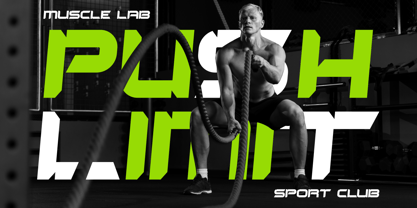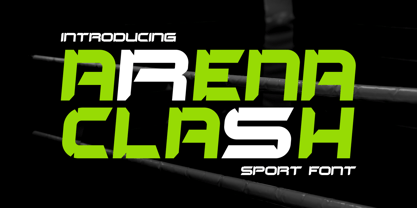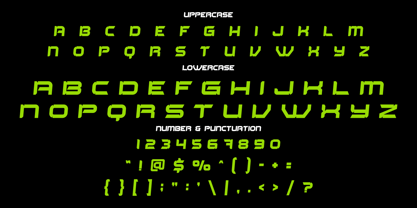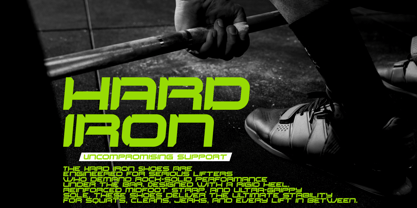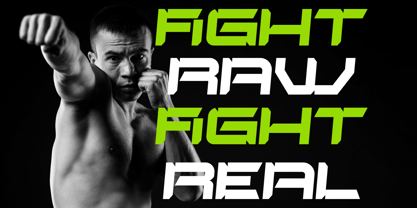
Arena Clash
by Shanaf
The Arena Clash Font Family was designed by Yesie Erma Yunita and published by Shanaf. Arena Clash contains 1 styles. More about this family
Arena Clash is a hyper-modern, masculine sport font that fuses angular force with aerodynamic flow. Designed with ultra-sharp edges, dynamic geometric construction, and consistent block widths, this font delivers the visual intensity of professional arenas and combat zones. The style leans on bold slab sans-serifs with futuristic stencil cuts and energetic contrast, perfectly embodying the spirit of competitiveness and raw motion. Each glyph is sculpted with strong vertical momentum and square terminals, making it ideal for sharp, high-visibility applications.
Engineered for sports professionals, fitness brands, e-sport logos, and modern tech wear, Arena Clash enhances titles, posters, packaging, gym signage, and merchandise with bold presence. It thrives in digital and print environments where impact is non-negotiable. Pair it with dynamic visuals or action-themed imagery, and it commands attention effortlessly. Whether it’s a boxing ring, gaming arena, or strength campaign, Arena Clash guarantees a knockout design result.